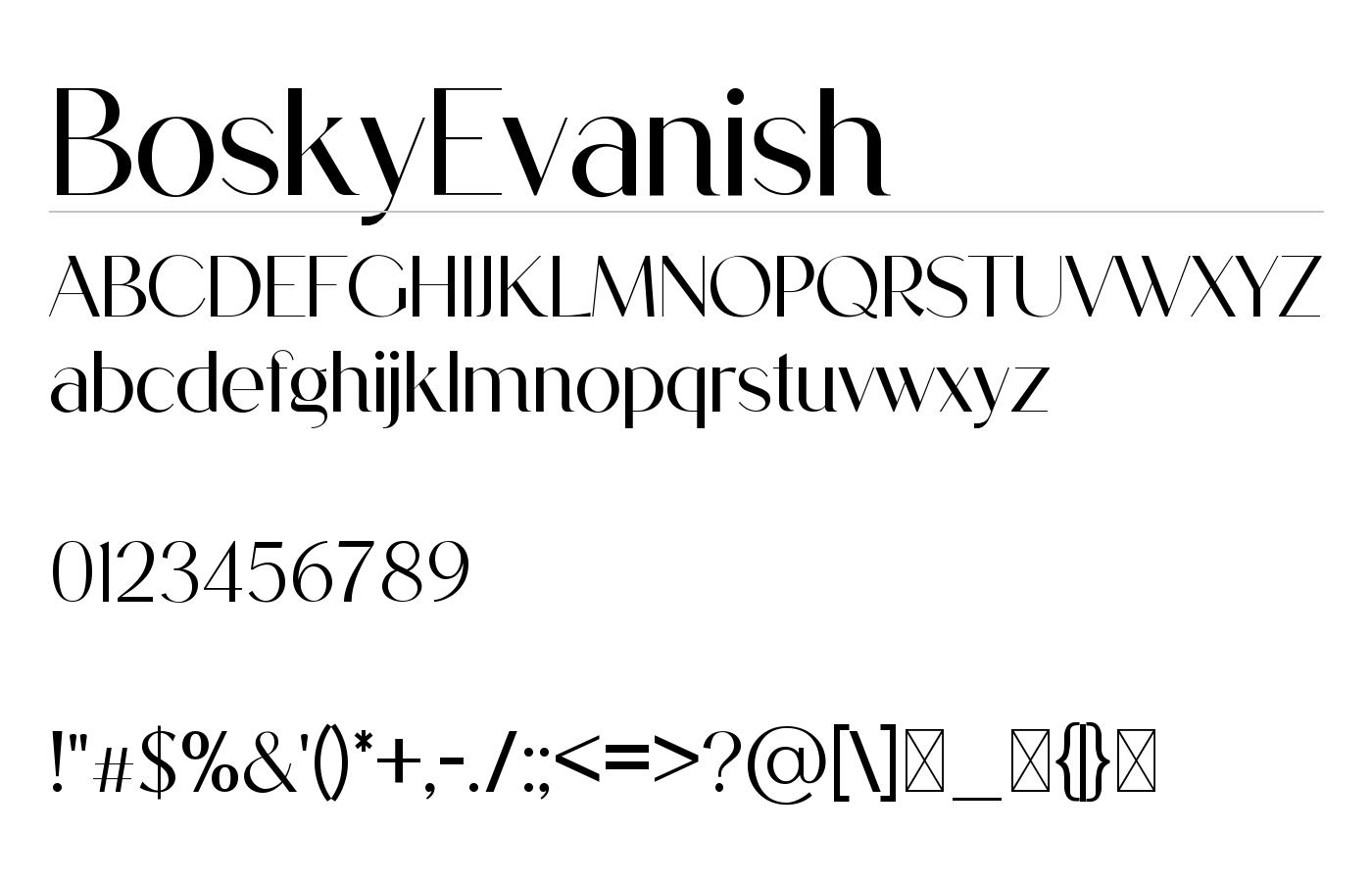
BoskyEvanish is an elegant serif font with a modern, high-contrast design featuring thin, sharp strokes and delicate, bracketed serifs. Its sophisticated letterforms, including distinctive curved tails and single-story structures, give it a refined and artistic feel, making it ideal for luxury branding, editorial headlines, and stylish packaging where a touch of grace and uniqueness is desired. This font works best in display settings, where its airy spacing and striking details can shine without compromising readability.
BoskyEvanish Font
About BoskyEvanish Font